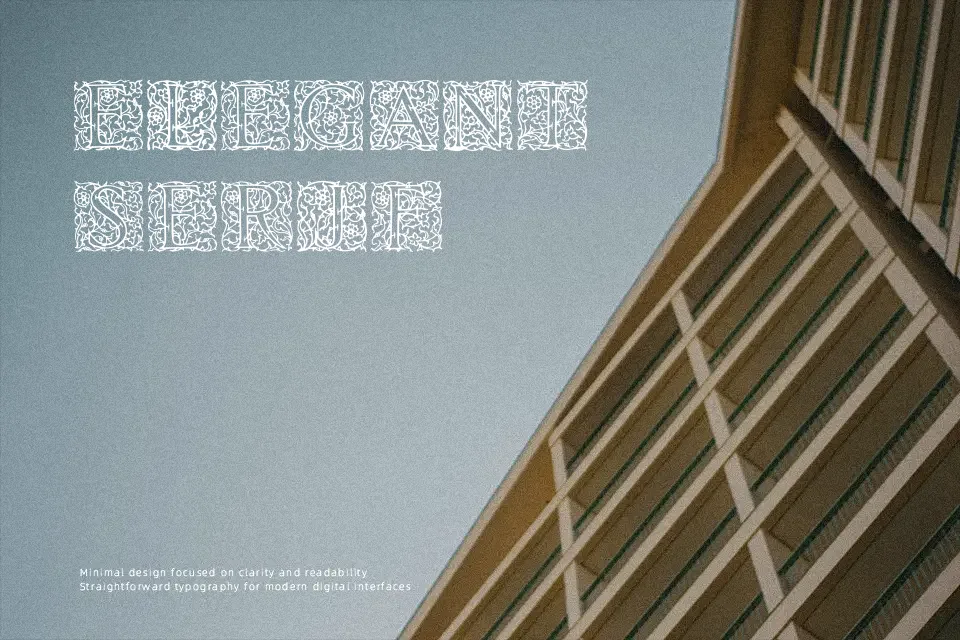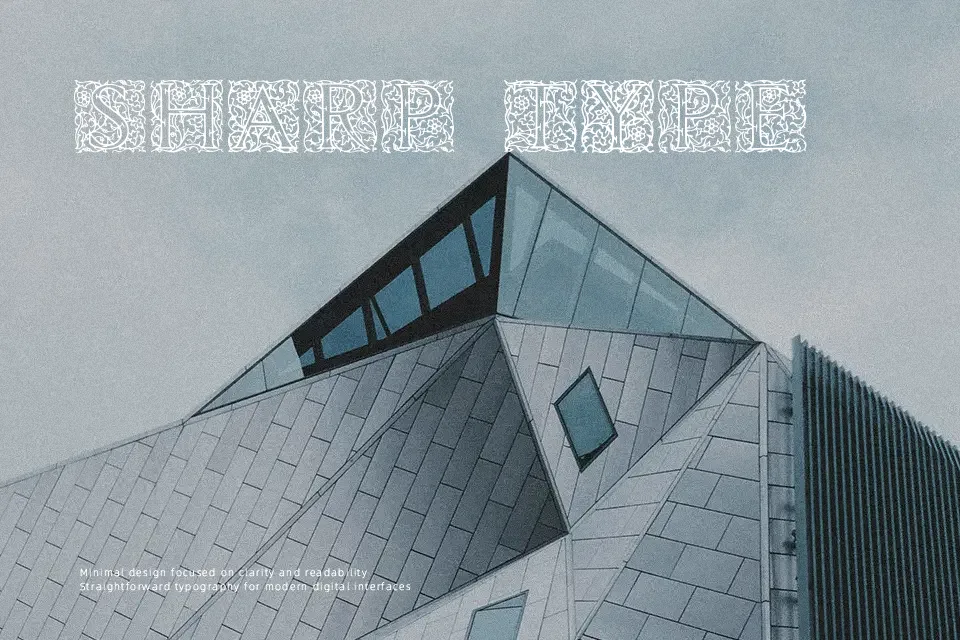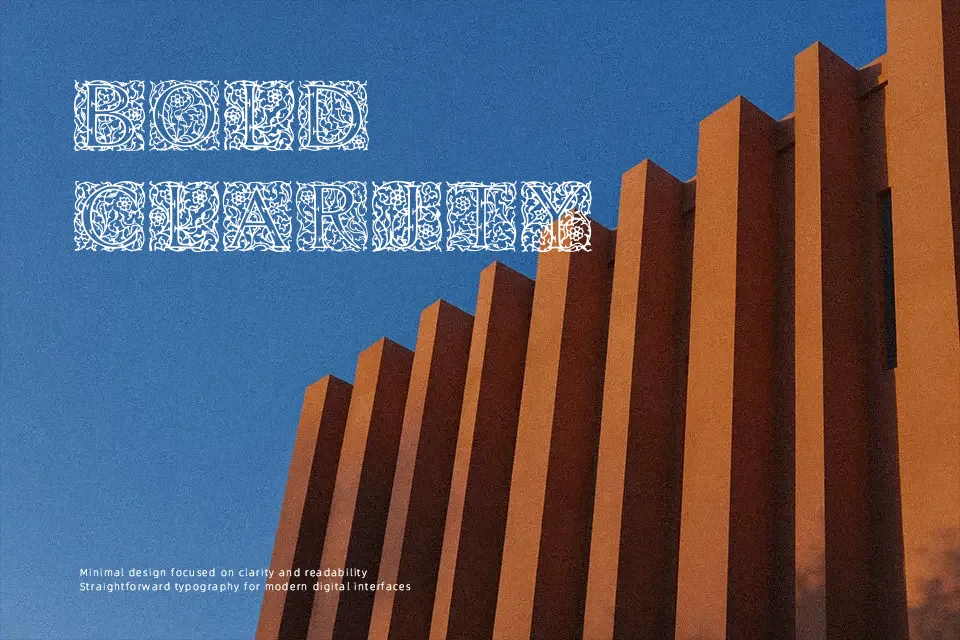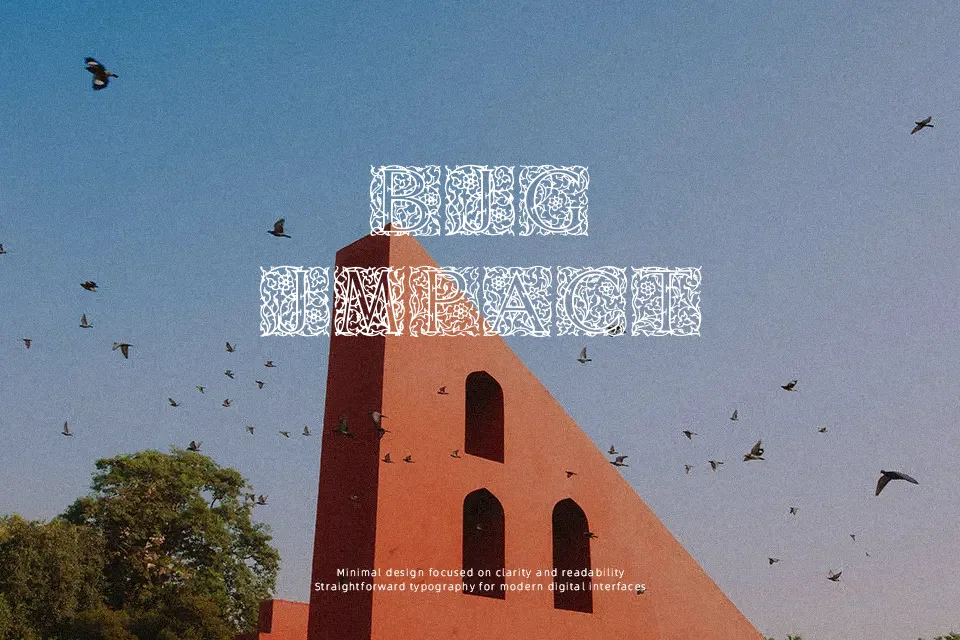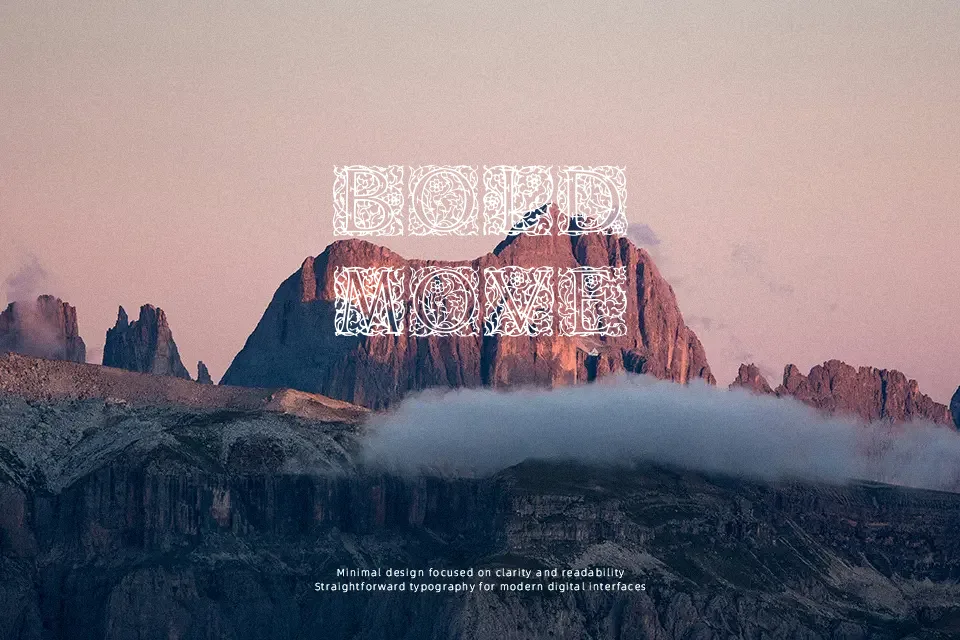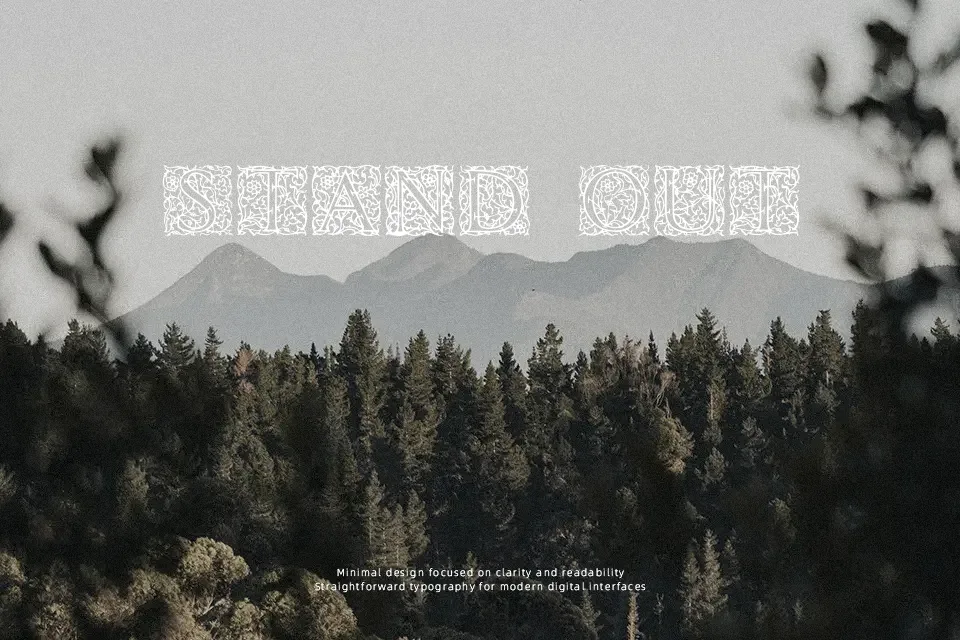
Arabesque Initialen Font
Designed by Dieter Steffmann
Each character in Arabesque Initialen is a single-letter illustration—capital letters wrapped in dense botanical ornamentation including blossoms, leaves, and scrolling vines, drawing on German turn-of-the-century decorative tradition. The visual weight is heavy, the detail intricate, and the overall impression is ceremonial rather than readable at scale. Because it covers only 56 glyphs (uppercase initials), it works best as a drop cap or standalone monogram, not as a running typeface. Pair it with a clean serif for body text to let the decorative character breathe. Anyone expecting a full alphabet for typesetting sentences will be quickly disappointed—this font exists for singular, high-impact letterforms where one character tells the whole visual story.
– Drop caps and chapter openers in printed books or editorial layouts
– Monogram designs for stationery or wax seals
– Vintage or Victorian-themed event invitations
– Decorative initial letters on certificates or diplomas
– Full-word or sentence-level typesetting (uppercase initials only)
– Digital UI elements or web interfaces requiring legibility at small sizes
– Modern minimalist or corporate brand identities
– Any project requiring a complete character set with numerals and punctuation
Perfect for branding, editorial, and invitation, with a ancient and decorative style.